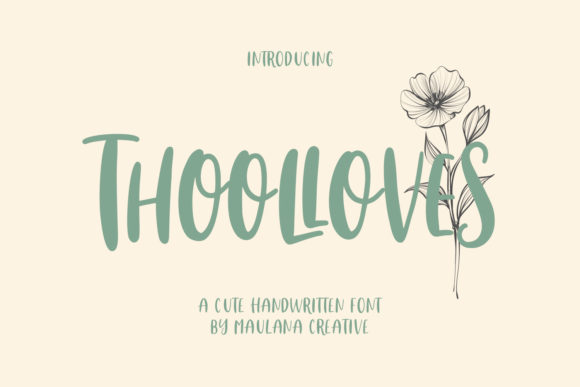
Prepare to fall head over heels for Thoolloves Font, the enchanting handwritten font that radiates beauty and charm. Adorned with graceful strokes and a touch of whimsy, it's a font that evokes the warmth of a summer breeze and the nostalgia of a childhood lullaby.
With Thoolloves, your designs will dance with personality and captivate the hearts of your audience. Its natural and relaxed style invites a sense of ease and authenticity, while its strong visual impact ensures that your creations stand out from the crowd.
Step into a world of creativity where your imagination runs wild. Thoolloves is the perfect companion for heartfelt branding, whimsical invitations, and playful social media posts. It adds a touch of magic to product packaging, greeting cards, and even handwritten notes, transforming them into cherished keepsakes.
Thoolloves is not just a font; it's an expression of your unique voice, a reflection of your creative soul. Let it guide you on a journey of self-expression, where your words take on a new life, filled with charm, character, and an irresistible allure.
Experience the beauty of Thoolloves today and discover the endless possibilities that await you. Its allure is undeniable, and its versatility knows no bounds. Embrace the beauty of handwritten charm and elevate your designs to new heights of creativity.